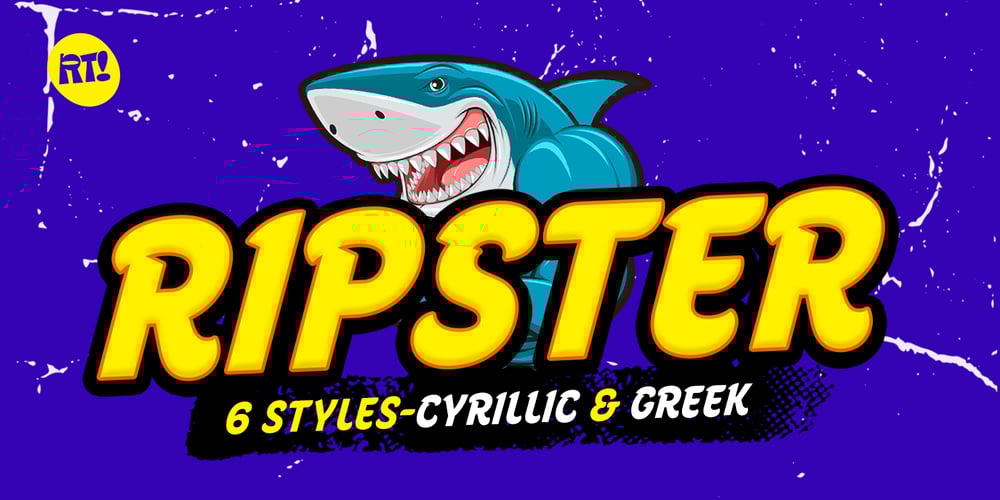
Ripster Font Family was designed by Andrey Kudryavtsev, Rodrigo Araya Salas, Bruno Jara Ahumada and published by RodrigoTypo. Ripster contains 6 styles and family package options. Ripster, is a typeface family of 6 variants (Regular, Inline, Shadow, Soft, Soft Inline, Soft Shadow.) especially for titles, with very dynamic and strange shapes, it also contains Cyrillic alphabet such as Greek.